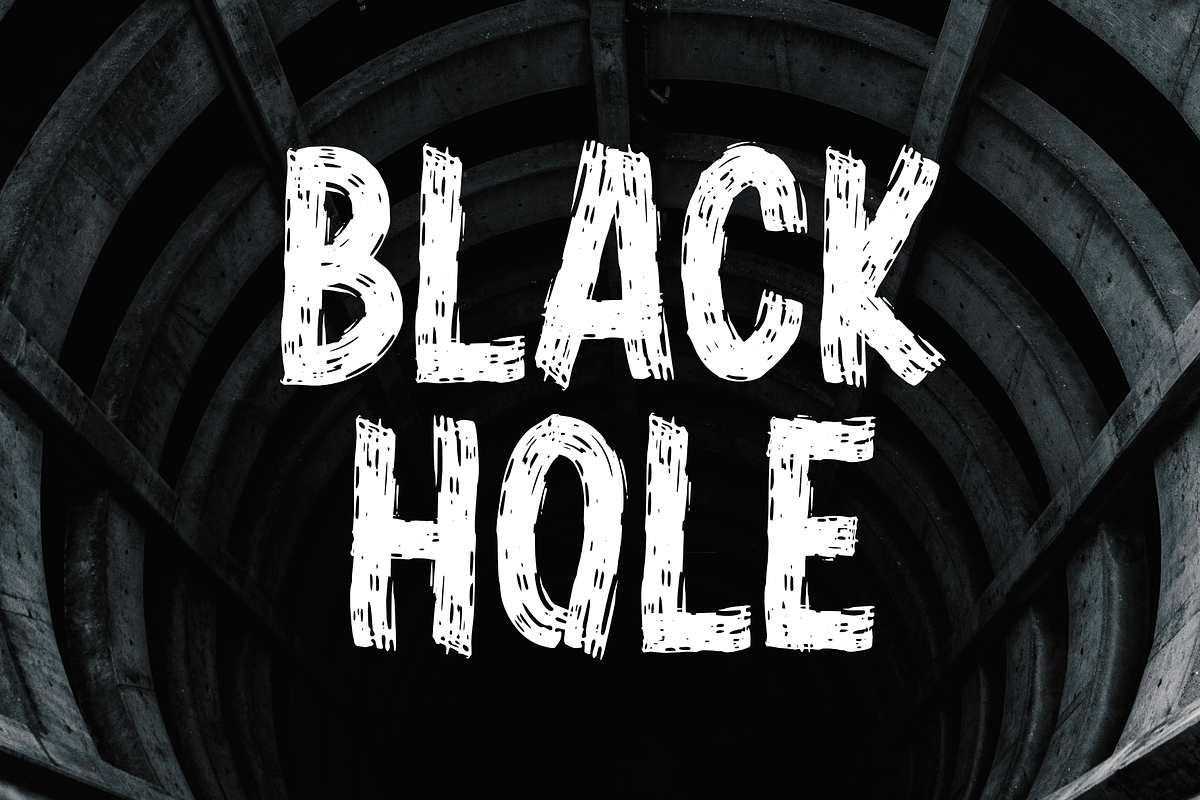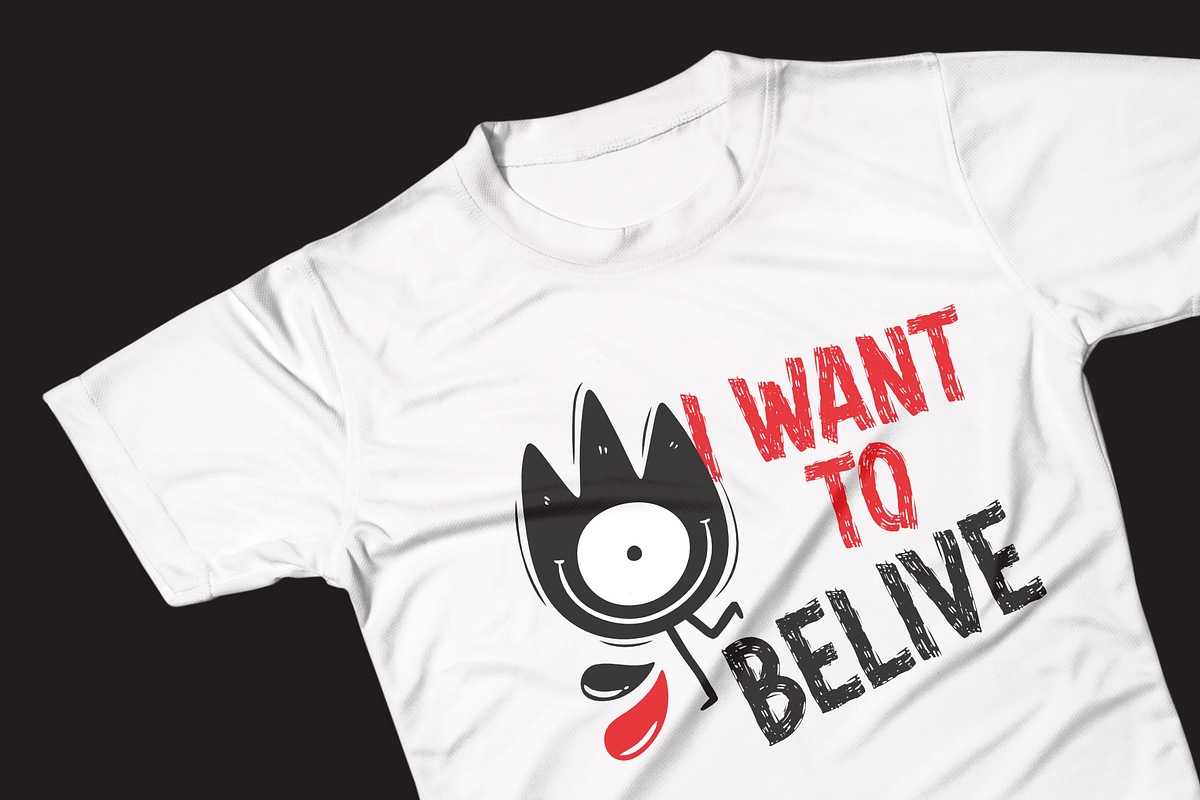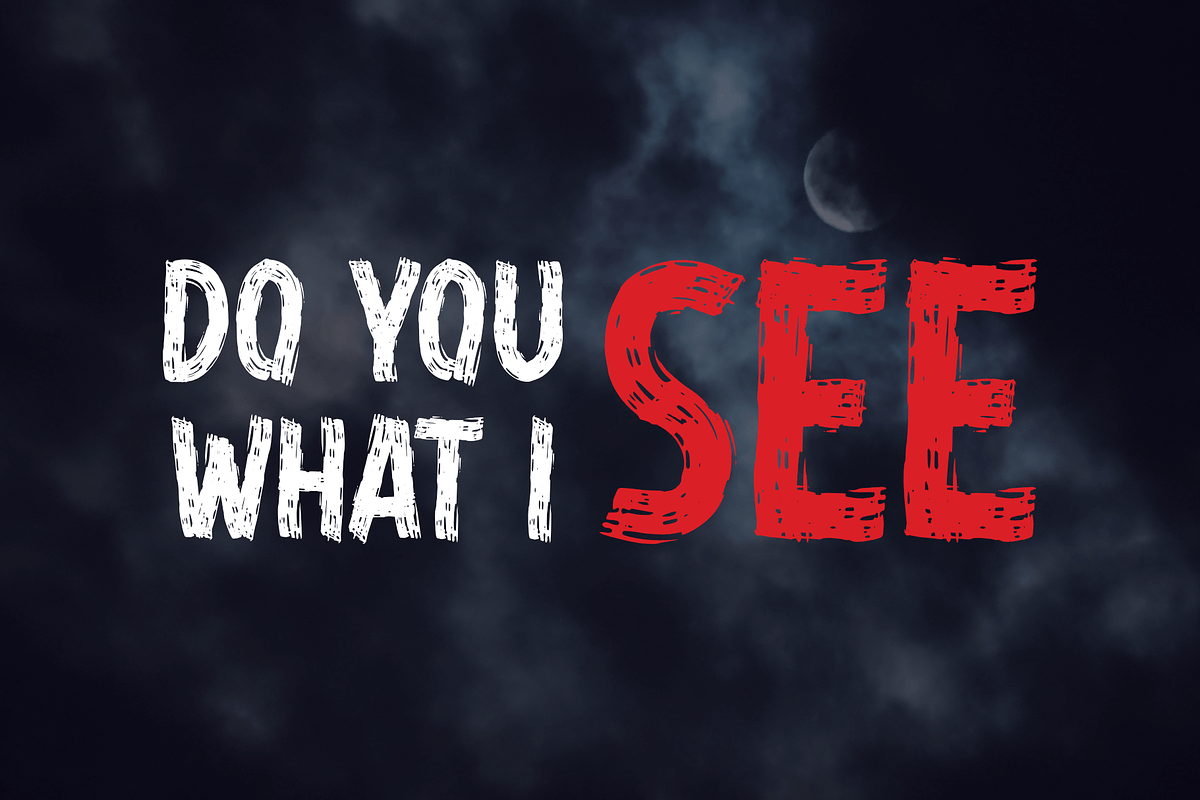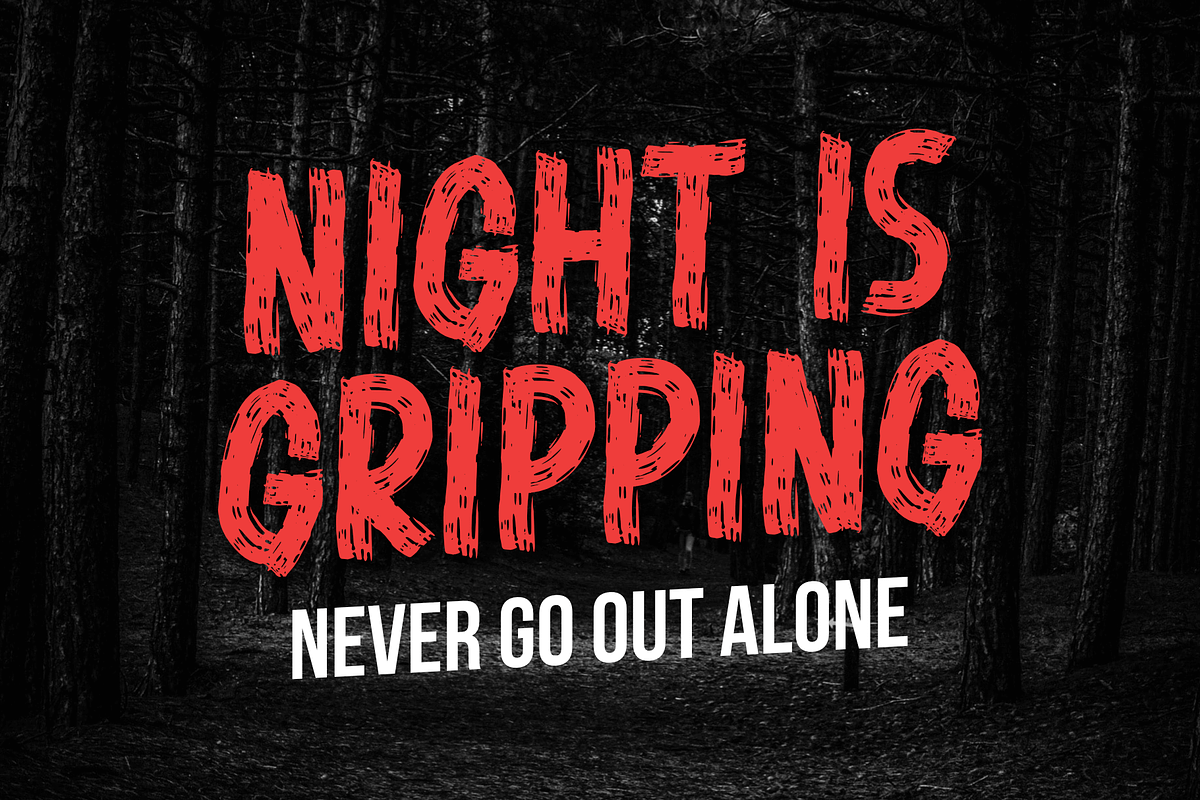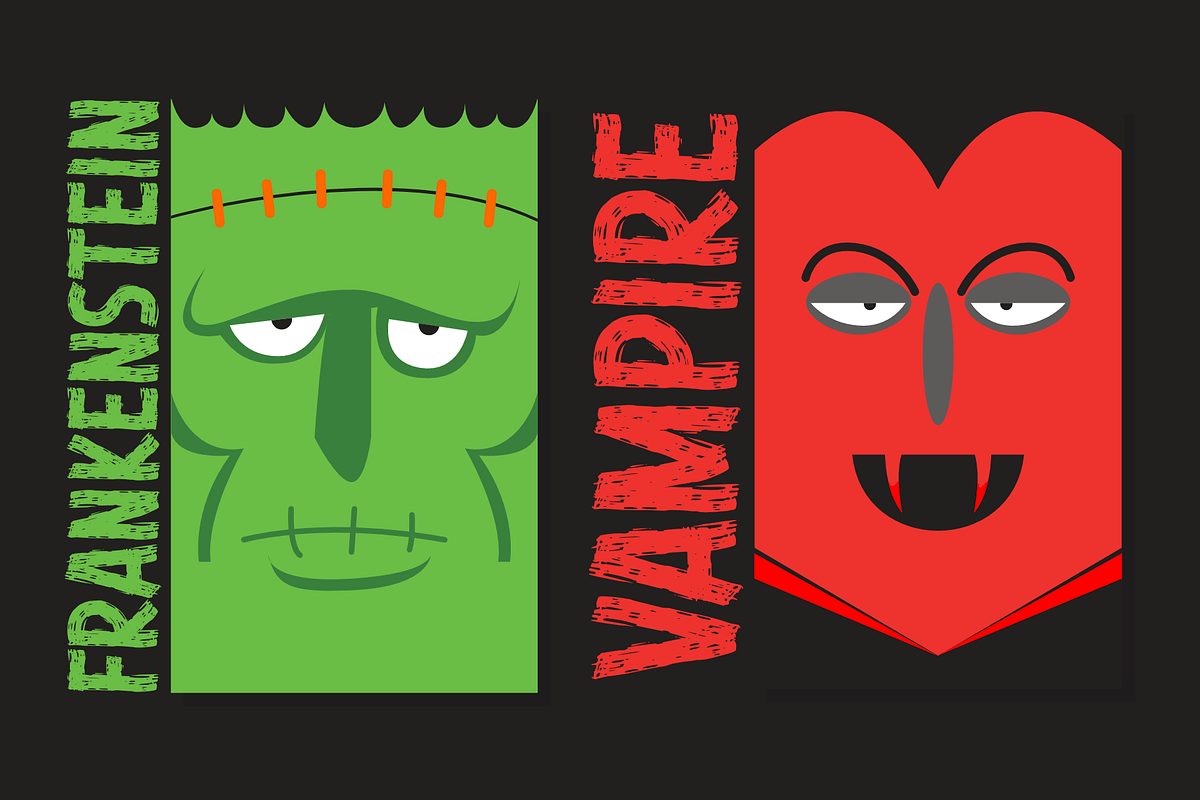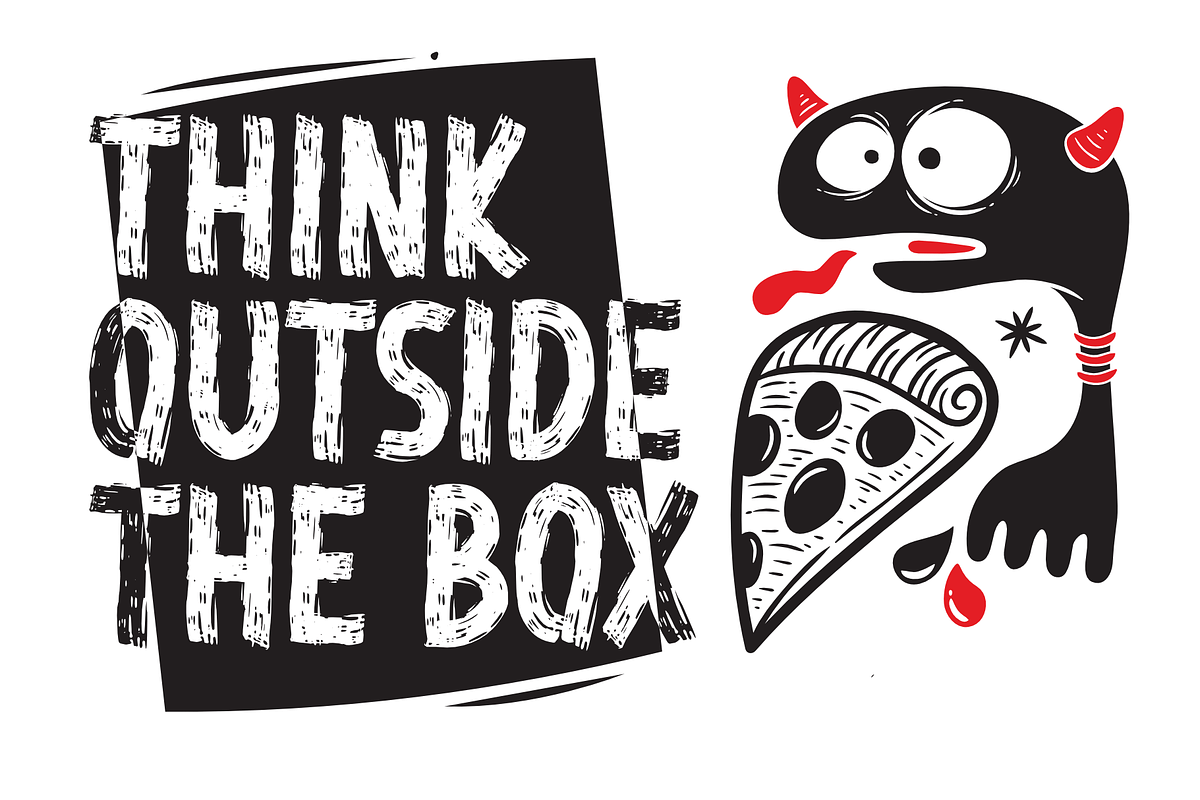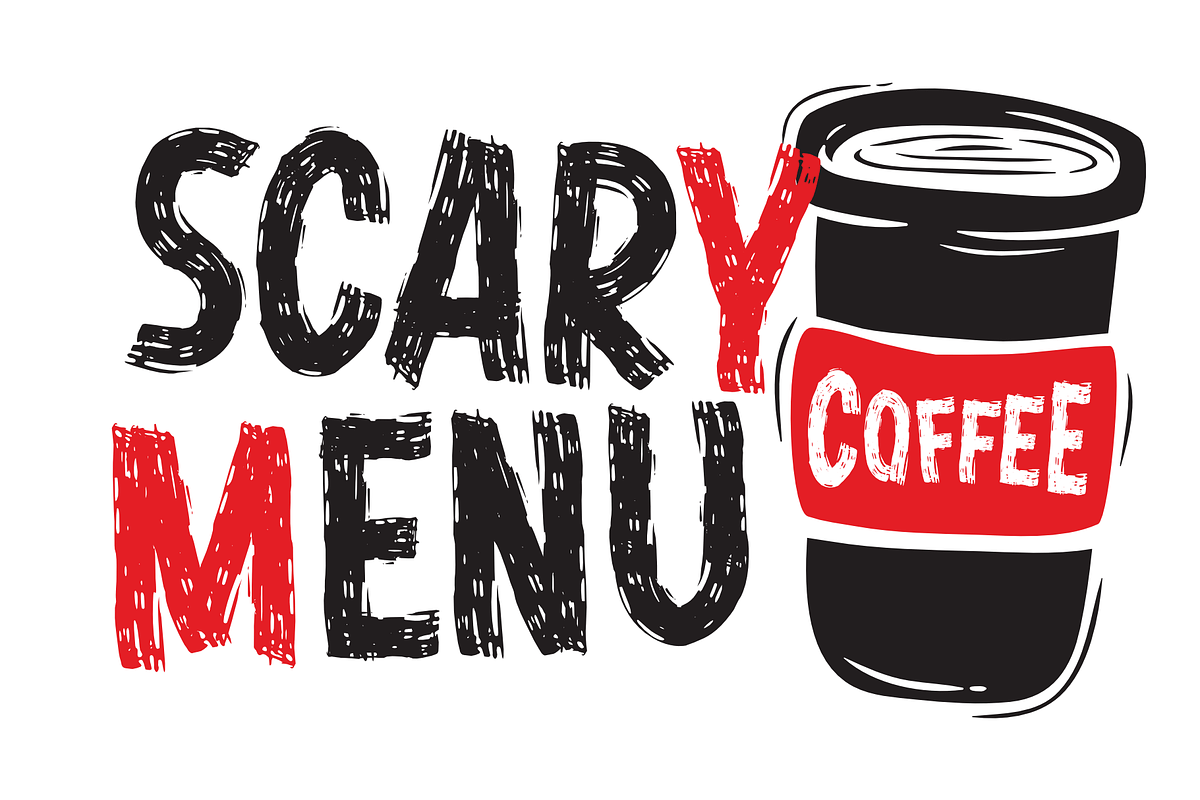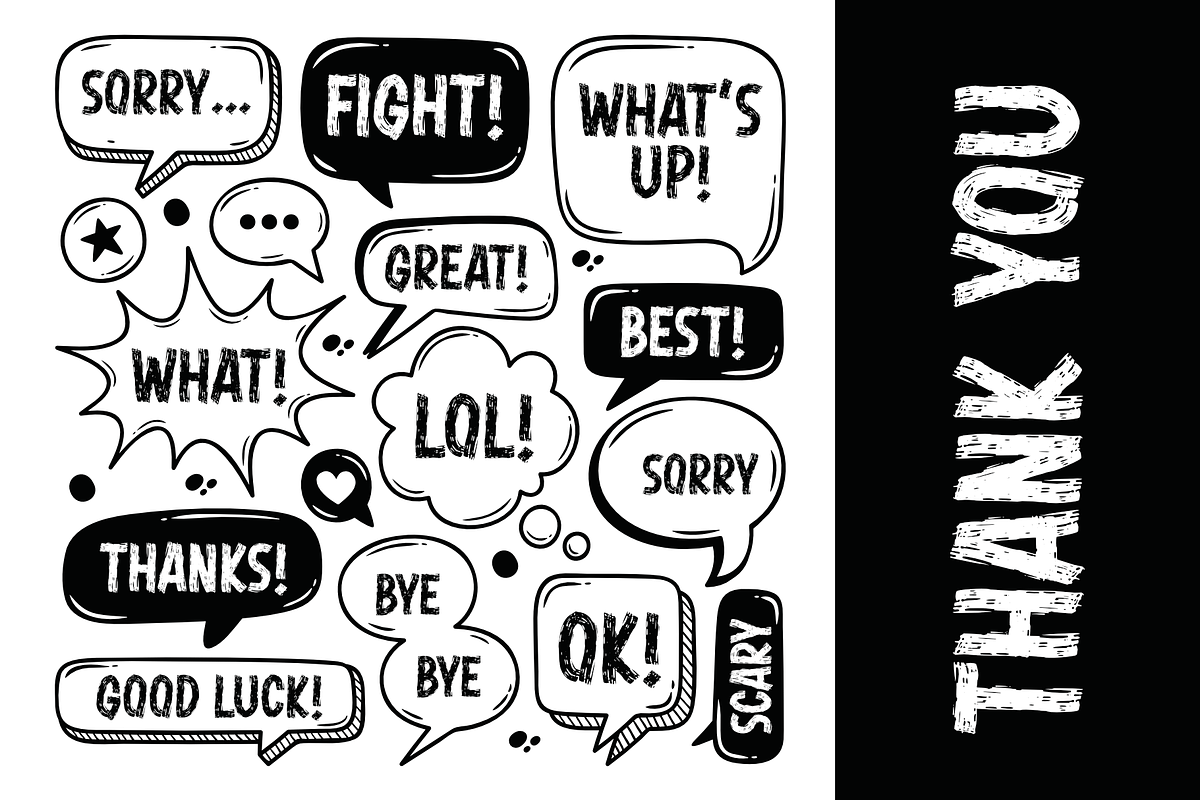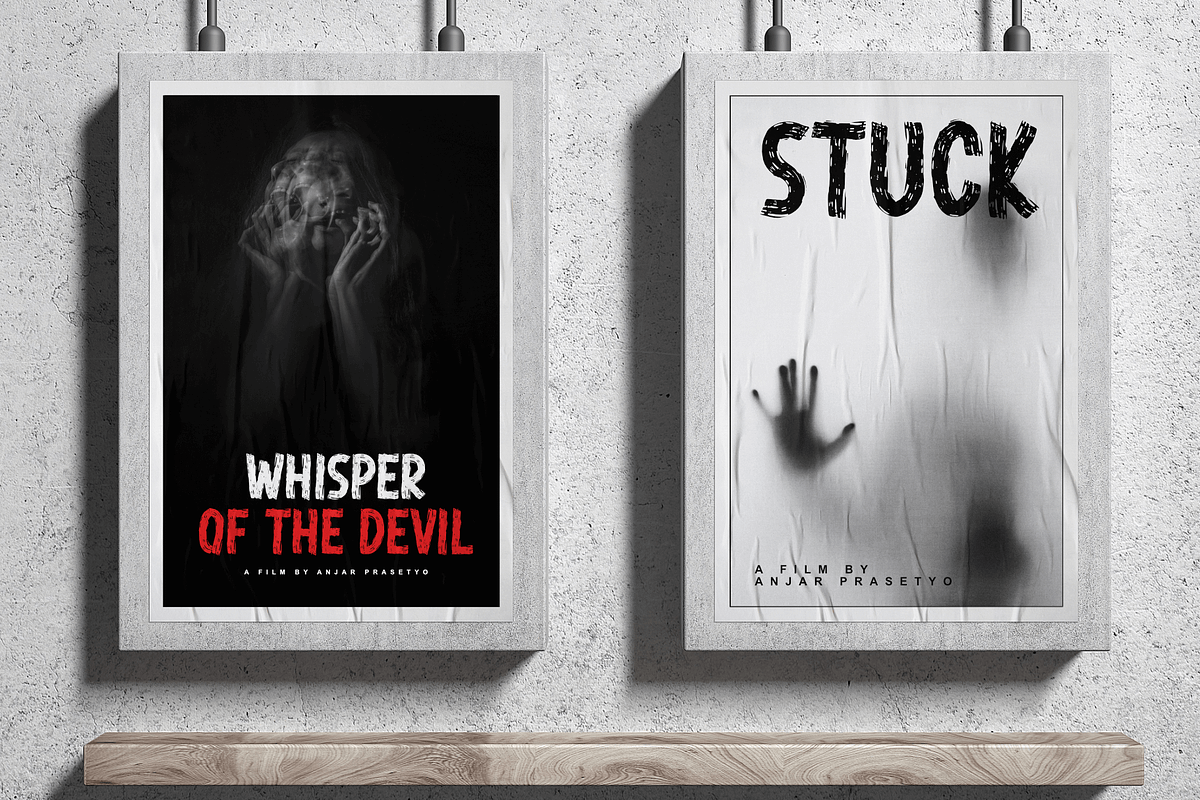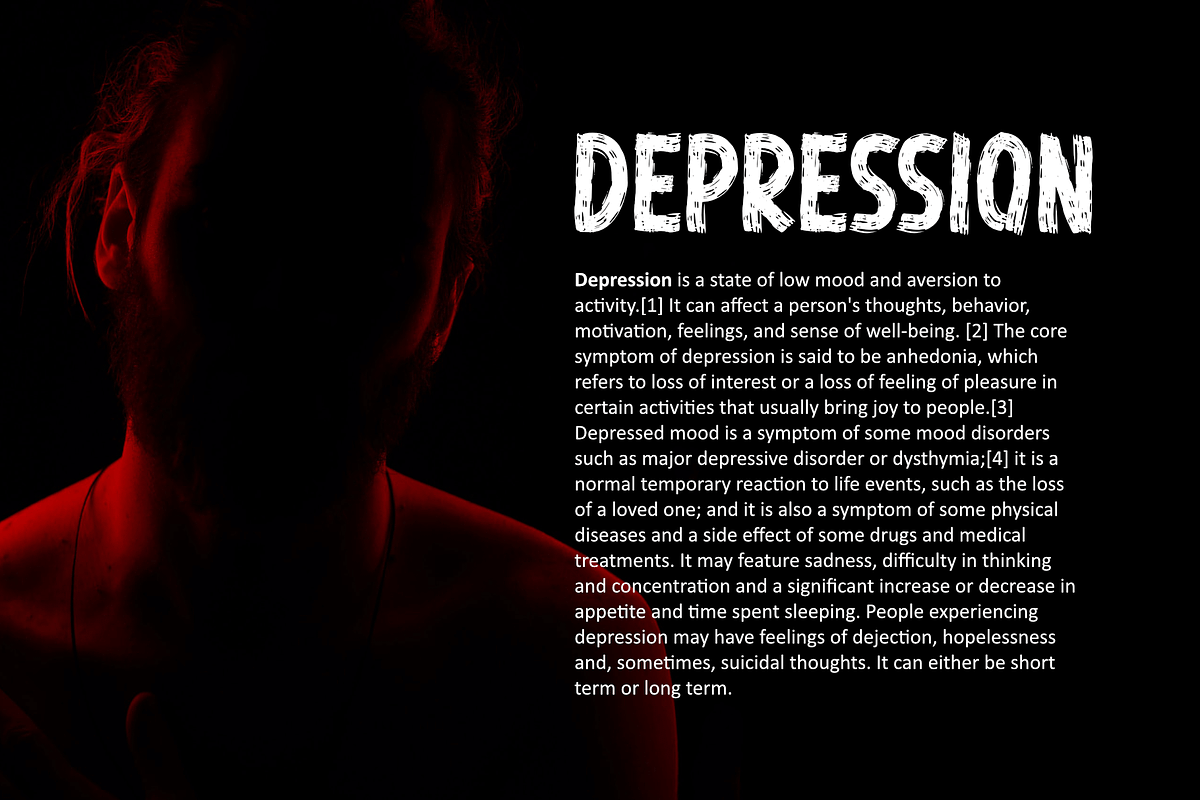
Buco Nero
Buco Nero is a modern sensation brush font. Featuring bold in the dark, it offers All Caps font support and multilingual support, Buco Nero is perfect for Movie titles, thrilling titles, distro shirts, spooky content, media socials, and spooky graphic design. Compatible with such as Photoshop, Affinity Design, Adobe Illustrator or Silhouette design studios. Its makes it great for creative projects, whether it's an inspiring wall poster or for communicating your brand. Thank you, Toni Dzulham - Dumadistyle